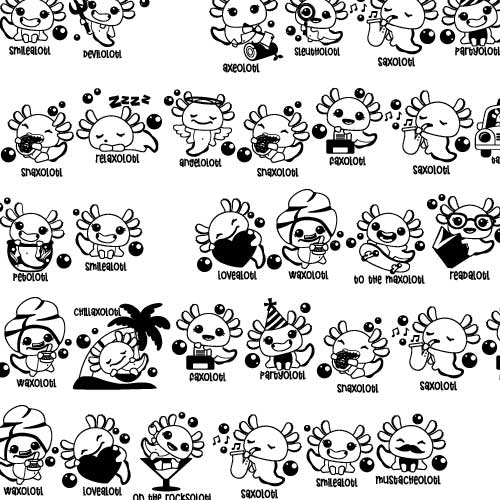
DB Happy Axolotl - Characters - DB
This adorable doodlebat features 26 little axolotls living their best life! Perfect for cards, crafts, gifts, decor, planner stickers, scrap book pages, parties and more!